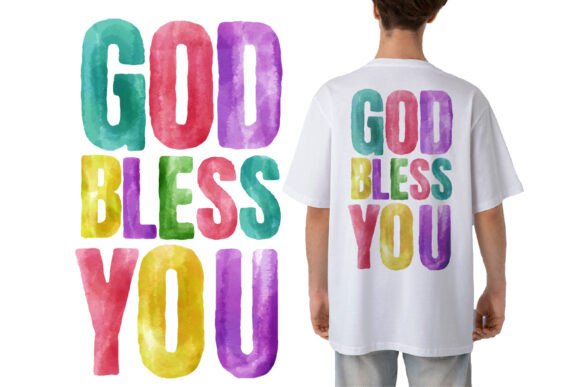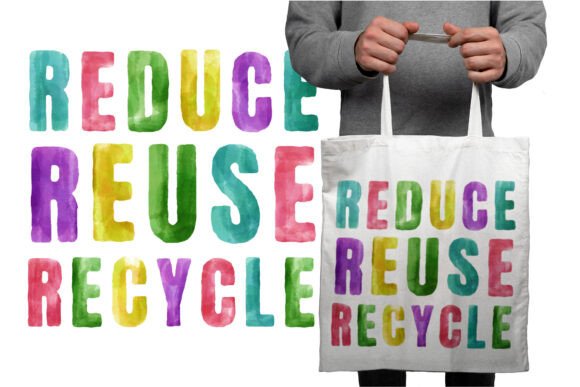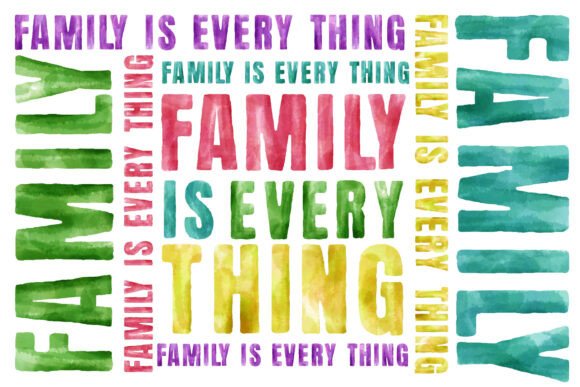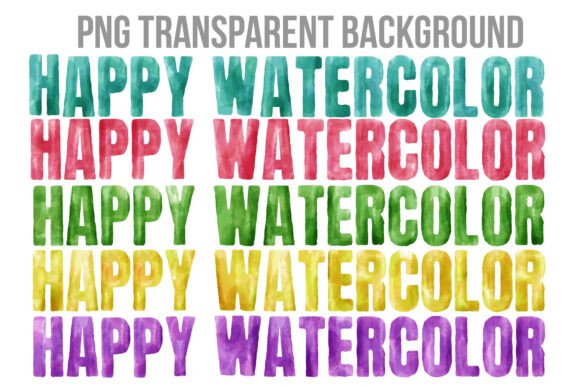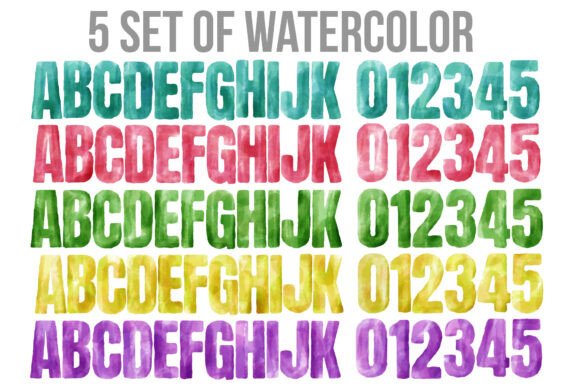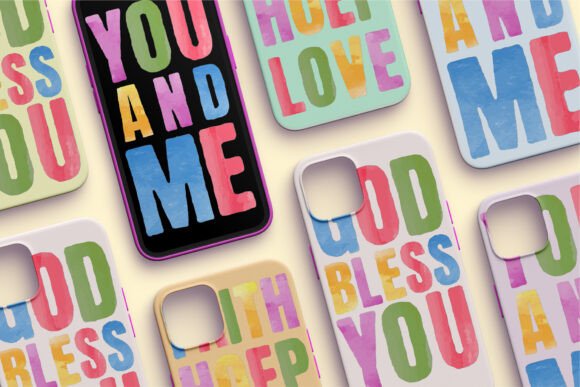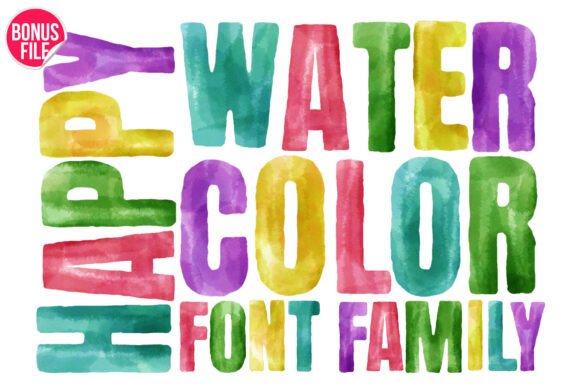
Introducing Happy Watercolor Font: Add a Touch of Whimsy to Your Designs
Are you looking for a font that can add a dash of personality and warmth to your designs? Look no further than Happy Watercolor Font, a charming, hand-painted typeface that is perfect for creative projects. With its whimsical touch, this delightful font is ideal for invitations, branding, quotes, and more.
The Characteristics of Happy Watercolor Font
Happy Watercolor Font is a unique and artistic typeface that boasts a range of characteristics that set it apart from other fonts. Here are a few of its standout features:
• Hand-painted charm: Each letter has been carefully hand-painted to give the font a personal and organic feel.
• Whimsical touch: The font has a playful, whimsical quality that makes it perfect for designs that require a bit of personality.
• Color font (Opentype-SVG): Happy Watercolor Font is a color font, which means it can be used in a range of design software, including PhotoShop, Illustrator, Silhouette, and Inkscape.
Perfect for a Range of Design Projects
Happy Watercolor Font is a versatile typeface that can be used for a wide range of design projects, including:
• Invitations: Whether you’re designing wedding invitations, birthday party invites, or baby shower announcements, Happy Watercolor Font is the perfect choice.
• Branding: Add a touch of personality to your brand with this unique and artistic font.
• Quotes: Use Happy Watercolor Font to create inspiring and eye-catching quotes for social media, blogs, or marketing materials.
• Creative projects: This font is perfect for crafters, artists, and makers who want to add a personal touch to their designs.
Tips for Using Happy Watercolor Font
Here are a few tips for getting the most out of Happy Watercolor Font:
• Experiment with colors: The font’s color capabilities mean you can experiment with different colors and combinations to find the perfect look for your design.
• Mix and match: Try pairing Happy Watercolor Font with other fonts to create a unique and eye-catching design.
• Play with texture: The font’s hand-painted texture means you can add a range of textures and effects to your design.
Happy Watercolor Font is a charming and artistic typeface that is perfect for designers and crafters looking to add a touch of personality and whimsy to their designs. With its hand-painted charm, whimsical touch, and color font capabilities, this delightful font is ideal for a range of creative projects. So why not let your creativity flow with Happy Watercolor Font? 🎨✨